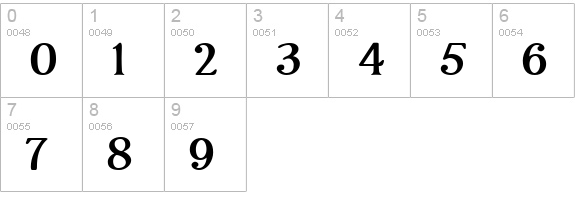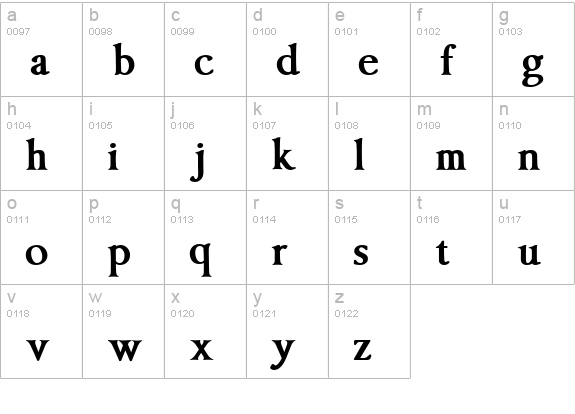
Imperator Bold is a strong, high-contrast variant in the Imperator typeface family \xE2\x80\x94 well suited to headlines, attention-grabbing titles, and strong calls-to-action.
Imperator Bold is a captivating and commanding font that exudes confidence and authority. With its bold and powerful letterforms, this font demands attention and instantly grabs the viewer's eye. Its strong and sturdy design makes it perfect for headlines, titles, and any other text that needs to make a bold statement. Imperator Bold also stands out for its versatility. It can be used in a wide range of design projects, from posters and advertisements to logo designs and branding materials. Its timeless elegance and timeless appeal make it a go-to choice for designers looking to add a touch of sophistication to their work. One of the best parts about Imperator Bold is that it is free to download at FontsMarket.com. That's right, you can get your hands on this stunning font without spending a dime! FontsMarket.com is a reputable website known for offering a vast collection of high-quality fonts, and Imperator Bold is just one of the many gems you can find there. So, whether you're a professional designer looking to elevate your projects or an individual seeking to add a touch of boldness to your personal creations, Imperator Bold is the perfect choice. Download it for free at FontsMarket.com and unleash its power in your designs today.